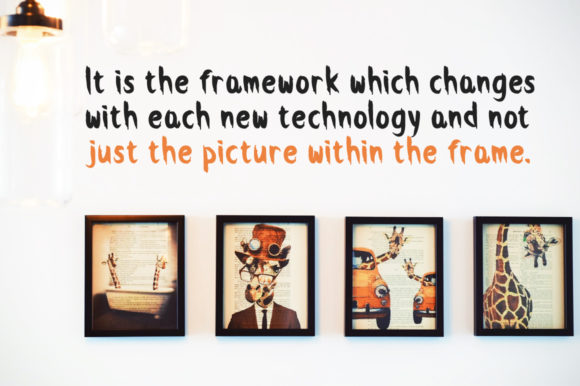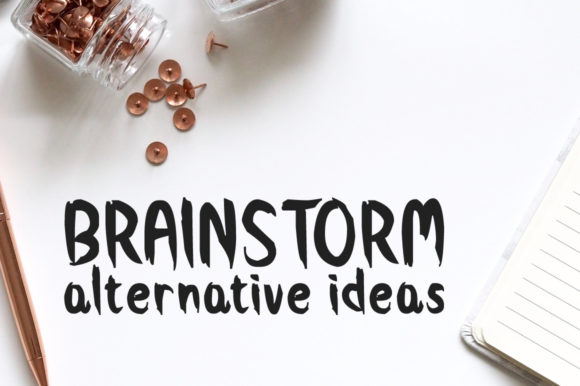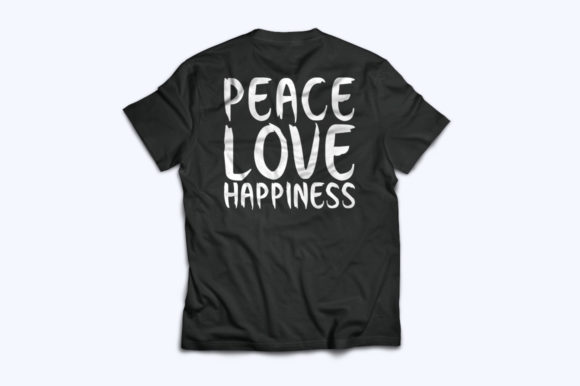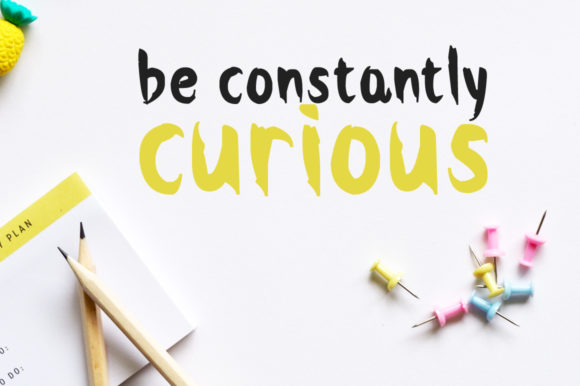
Introduction to Move over Font
As a designer, you’ve probably found yourself stuck in a creative rut, searching for that perfect font to elevate your project. Remember the time you spent hours browsing through font libraries, only to end up with a generic, cookie-cutter option that just didn’t cut it? We’ve all been there. But what if you could say goodbye to those bland fonts and hello to a high-quality, one-of-a-kind design resource that takes your creative project to the next level?
Enter the Move over Font, a brand new brush font that’s ready to shake up your design game. With its perfect blend of style and sophistication, this font is perfectly suited for a wide range of applications, from stationery and logos to t-shirts and posters.
Key Features of Move over Font
- High-quality design resource with a wide range of creative project applications.
- Includes a large character set, with over 1000 glyphs, making it suitable for complex creative projects.
- Designed with high-resolution graphics, suitable for print and digital applications up to 300 DPI.
- Unique characteristics include a bold, modern design aesthetic and a wide range of ligatures and alternates.
- Supports various languages, making it a versatile design resource for international projects.
Honest Review: Move over Font
As a designer, I’m always on the lookout for high-quality design resources that can elevate my creative projects. Move over Font is one such resource that caught my attention, and I’m excited to share my honest review with you.
What works well: ✨ Move over Font offers a wide range of unique and stylish fonts that are perfect for any design project. The font styles are modern, sleek, and sophisticated, making it an ideal design resource for creatives. The transparent background option allows for seamless integration with any design, and the free download feature is a bonus for designers on a budget.
- Unique and stylish font styles
Limitations: ⚠️ While Move over Font is a great design resource, it may not have the same level of versatility as some other font libraries. The font selection is curated, but it may not have the same breadth of options as other resources.
Overall impression: Move over Font is a solid design resource that offers high-quality fonts for creative projects. While it may have some limitations, it’s a great option for designers who are looking for unique and stylish fonts at an affordable price. I’d definitely recommend it to fellow designers!
How to Use Move over Font
Move over Font is a high-quality design resource perfect for creative projects that require a unique and eye-catching touch. With a transparent background, this font is easily customizable to fit any design style.
Getting the Most Out of Move over Font
For the best results, experiment with different font sizes and styles to create a visually appealing design.
Move over Font is ideal for creating attention-grabbing headlines, adding a touch of elegance to invitations, or enhancing the visual appeal of social media graphics.
Q: Can I customize Move over Font to fit my design needs?
A: Yes, Move over Font is a highly customizable design resource that can be easily edited and modified to fit your specific design needs. With its high-quality design and transparent background, Move over Font is an excellent choice for designers who want to create unique and engaging design projects.